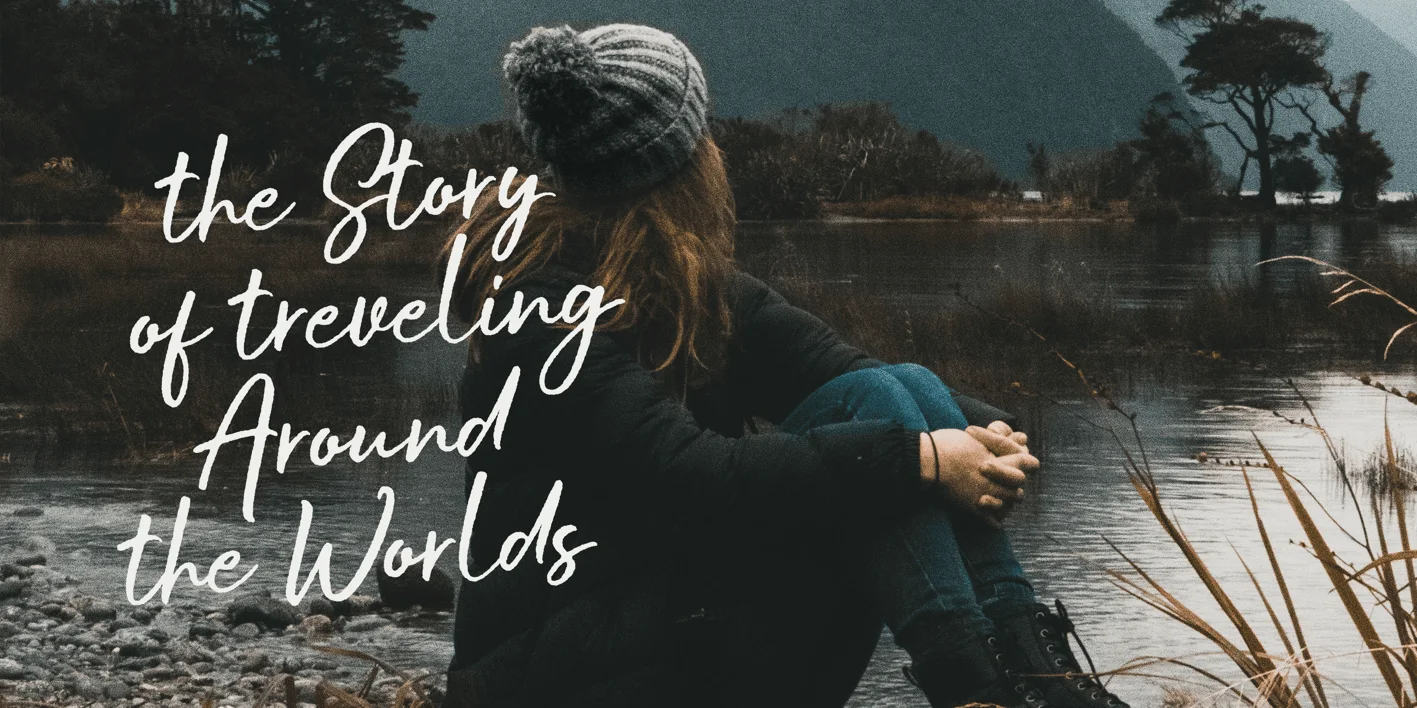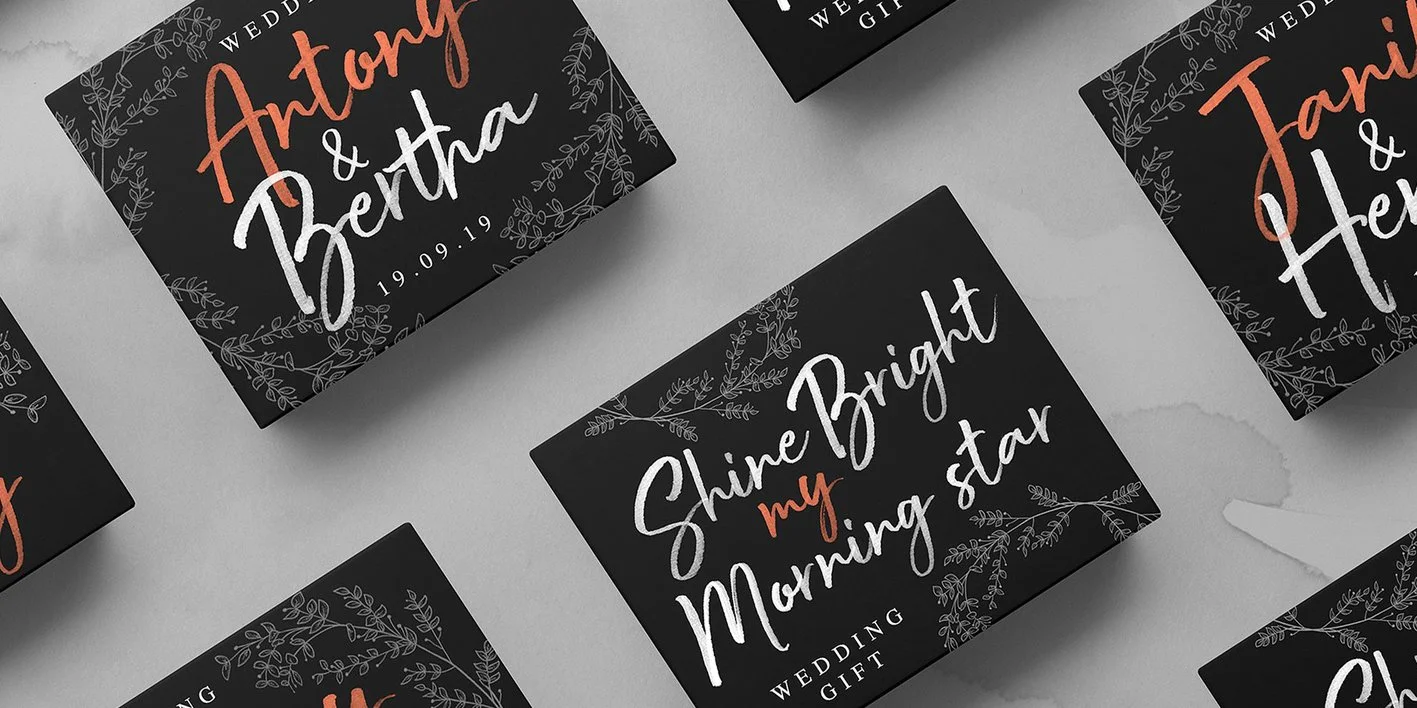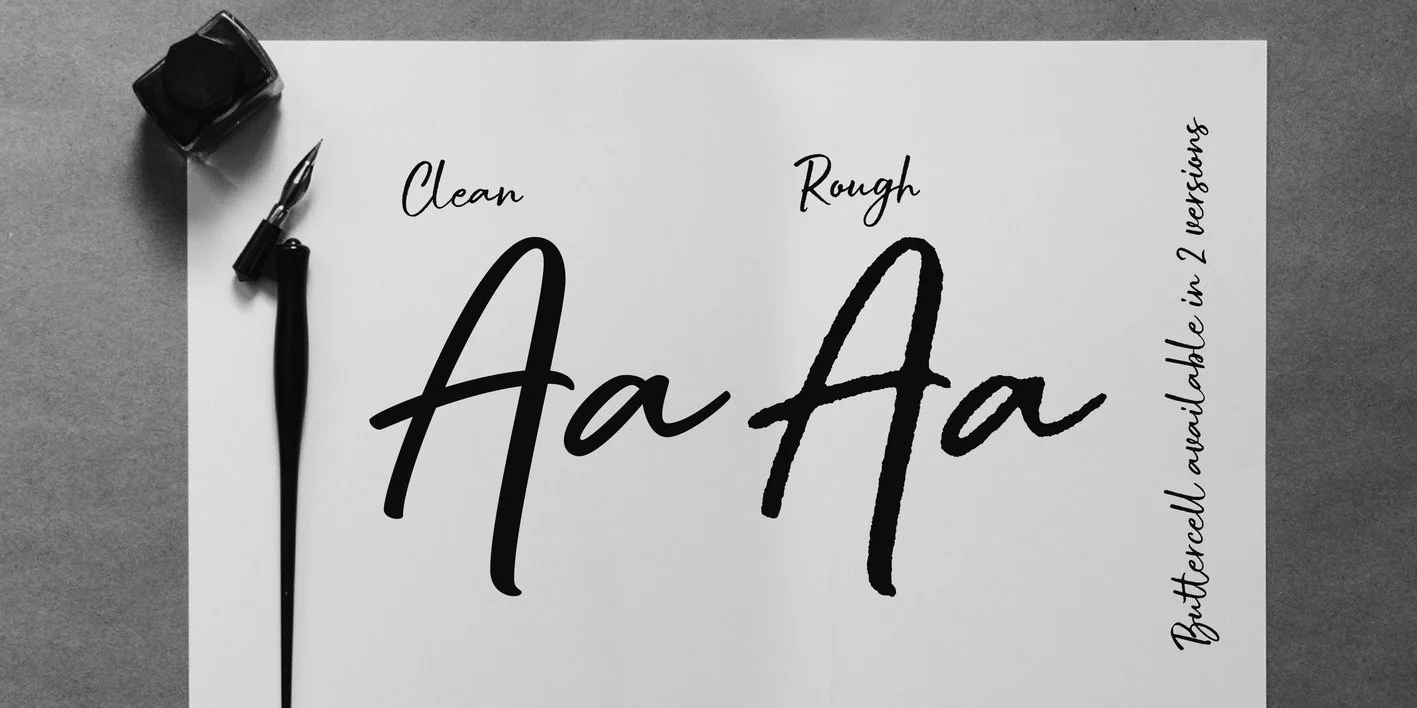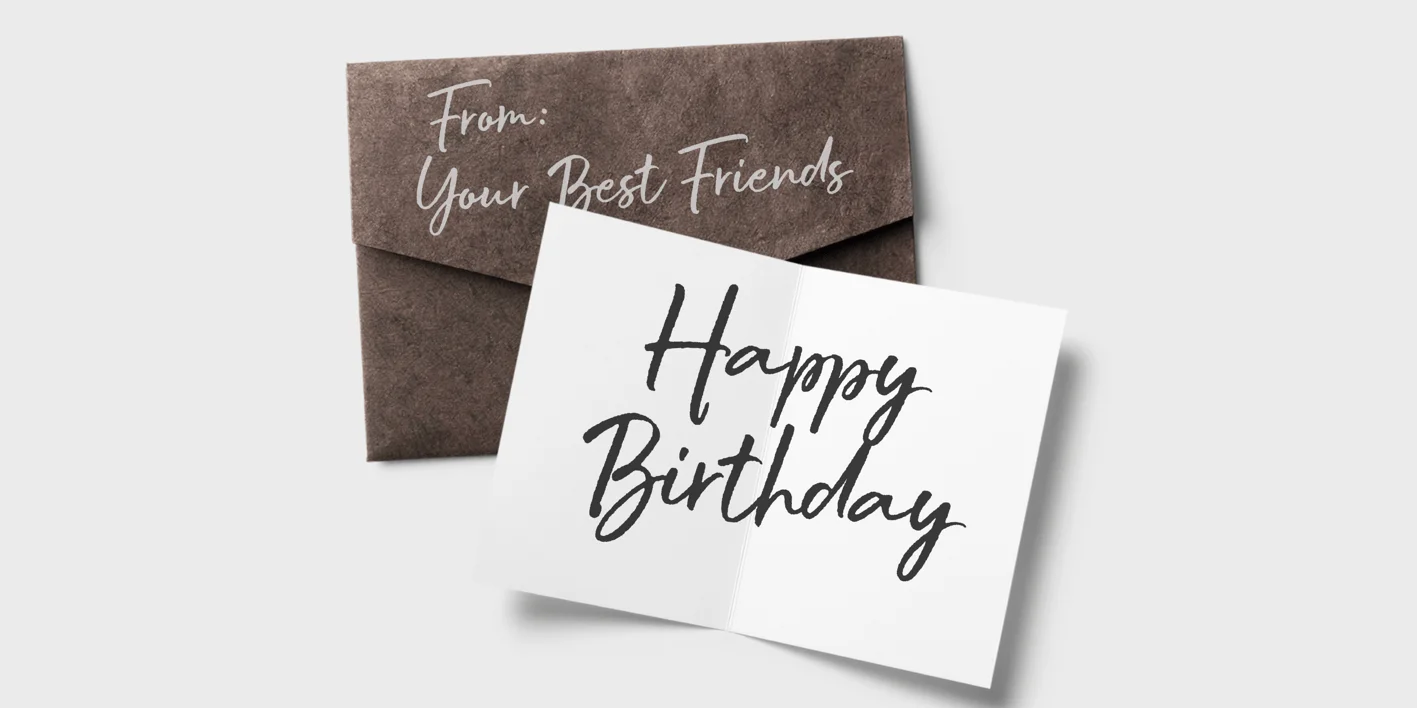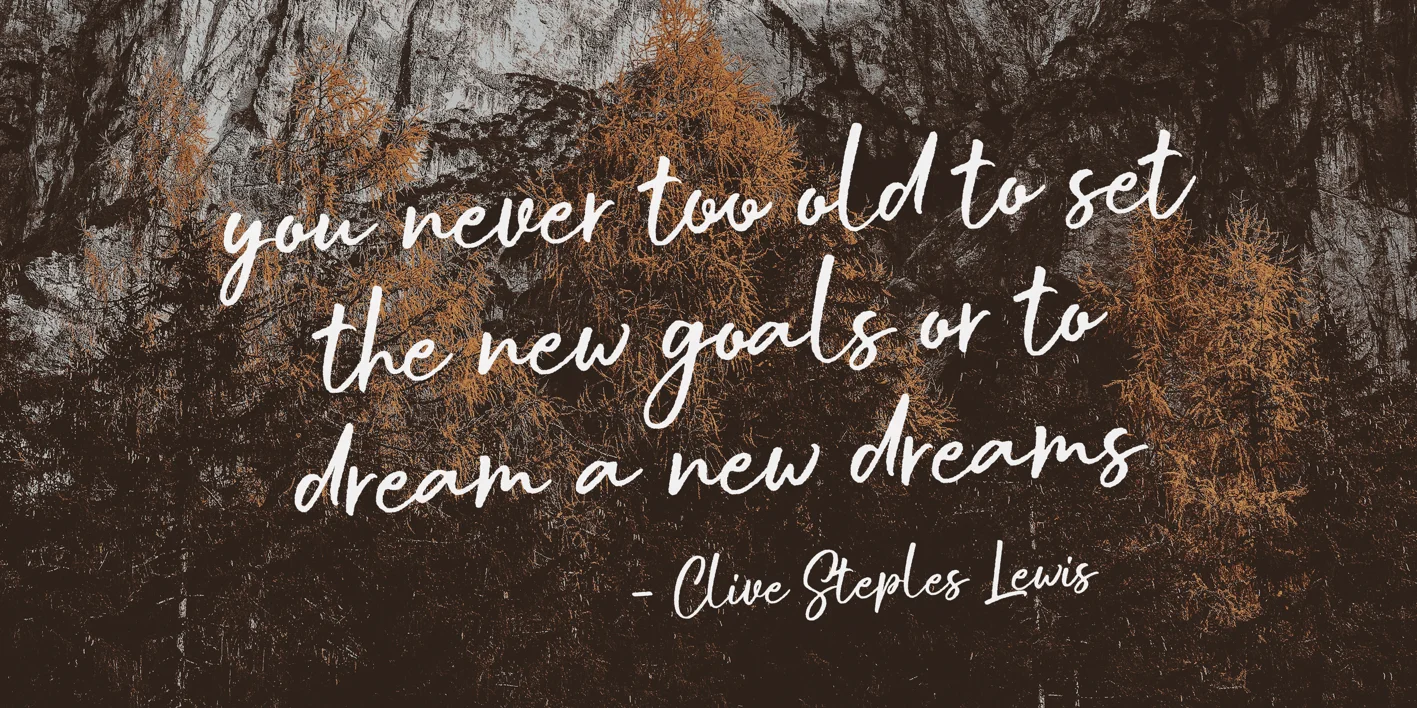
Buttercell Script Font
There is a particular satisfaction in finding a typeface that delivers consistent type colour across continuous text without compromise. Buttercell Script consistently provides it. The typeface brings an elegant, calligraphic sensibility to a broad range of creative disciplines, with the kind of restraint that lets content lead that holds up whether the work is print-first or screen-first.
In practice, Buttercell Script proves particularly effective for annual reports, social media graphics, event signage, poster creation, beauty packaging. Designers reaching for it find that the type decisions feel resolved rather than laboured — a useful quality when client timelines are tight.
The range of applications extends to environmental graphics, boutique logos, logo design, fragrance labels. That breadth is deliberate: the proportions and spacing were stress-tested across a wide range of mock briefs before the typeface was finalised.
At smaller sizes the design retains its character without becoming cluttered. This resilience across scales makes Buttercell Script equally suitable for a business card and a billboard — a useful property when assets must scale across a campaign.
Brand strategists building visual languages find Buttercell Script a reliable choice for projects that demand both personality and restraint. The design avoids the self-conscious quirkiness that dates quickly, settling instead for considered distinctiveness that holds up over time.